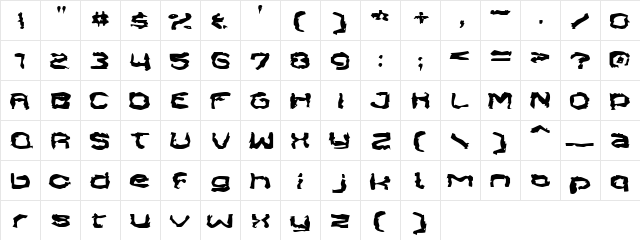
Send Cash Regular
Design Context for Send Cash Typeface
Send Cash is a composed and adaptable typeface that performs quietly and consistently across a wide range of design contexts.
Pro Tip: Pair Send Cash with a font of contrasting weight or personality to build a more expressive typographic hierarchy.